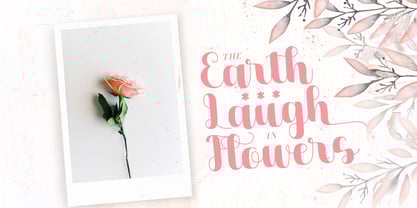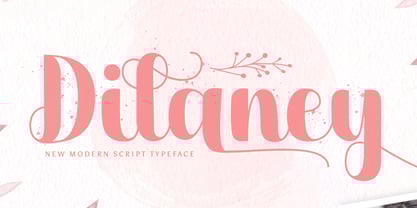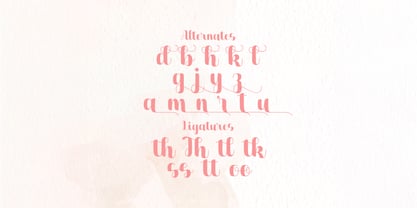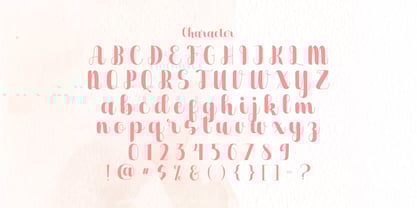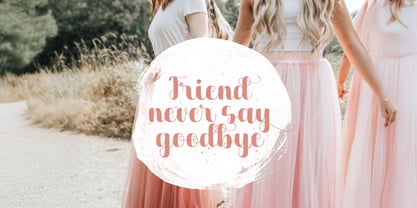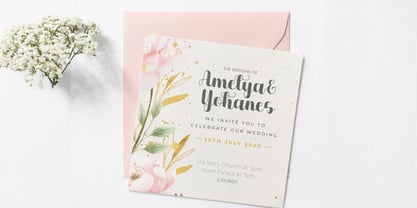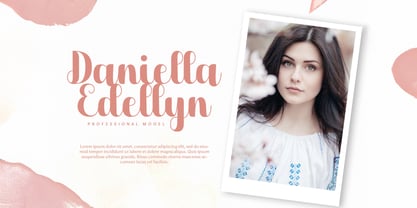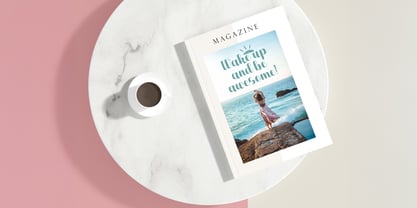
The Dilaney Font Family was designed by Virgiawan Listanto and published by Stringlabs Creative Studio. Dilaney contains 1 styles. More about this family
Dilaney is a modern handwritten font that blends simplicity with timeless charm. Featuring smooth, flowing lines and natural stroke variations, this font brings a personal and graceful touch to any design. Whether you're creating branding, invitations, or social media content, Dilaney delivers a clean yet expressive style that feels both fresh and authentic.
Designers: Virgiawan Listanto
Current Foundry: Stringlabs Creative Studio